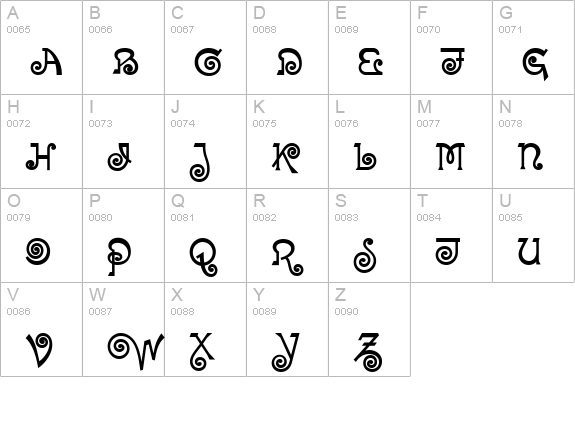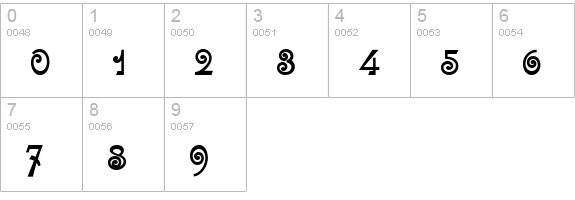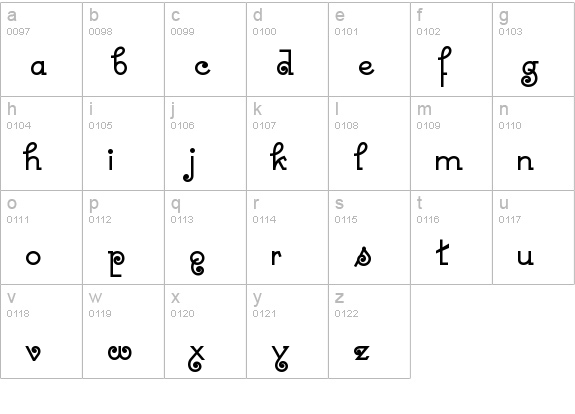
Paddy Wagon NF Font Details
Paddy Wagon NF is a captivating and unique font that exudes a sense of adventure and nostalgia. Inspired by vintage police car lettering, this font pays homage to the classic era of law enforcement. With its bold and slightly rough design, Paddy Wagon NF commands attention and adds a touch of retro charm to any project. This font is not only visually striking but also incredibly versatile. It can be used for a wide range of creative endeavors such as branding, logos, posters, headlines, and more. Whether you're aiming for a bold and authoritative look or a playful and whimsical vibe, Paddy Wagon NF can effortlessly adapt to your needs. One of the best aspects of Paddy Wagon NF is that it is completely free. That's right, you can download this captivating font without spending a penny. The creators of Paddy Wagon NF believe in the power of making beautiful typography accessible to all, and they have made it freely available to download at FontsMarket.com. So why wait? Unleash your creativity and give your designs an extra dose of character with Paddy Wagon NF. Download it today and embark on a typographic journey that is both timeless and unforgettable.